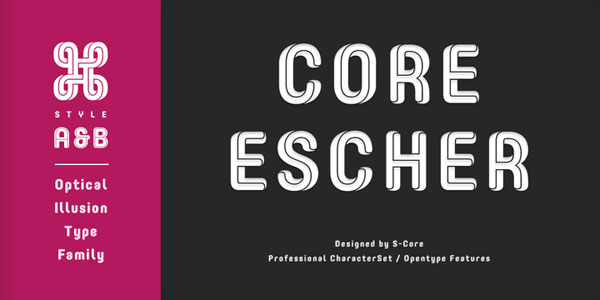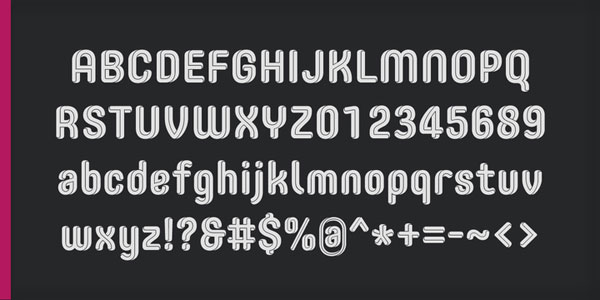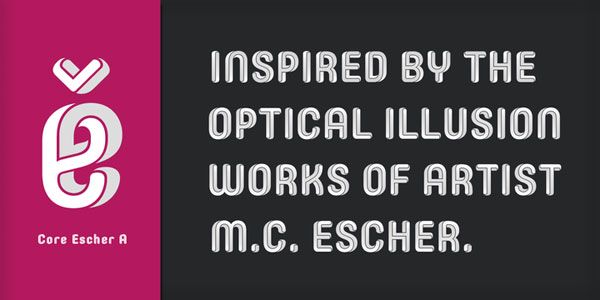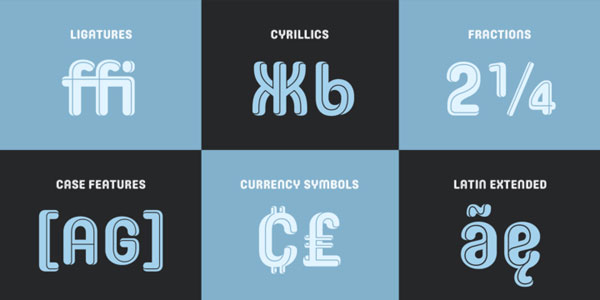
Core Escher is a beautiful font family based on the work of M.C. Escher, an artist who specialized in optical illusion art.
With rounded shapes and layers, this typeface perfectly recreates the impossible perspectives that Escher often pictured with strange stairs or castles.
With the sub-families offered, you can create different viewpoints to change the optical illusion, making the typeface much more efficient in every situation. You can buy this font on MyFonts.